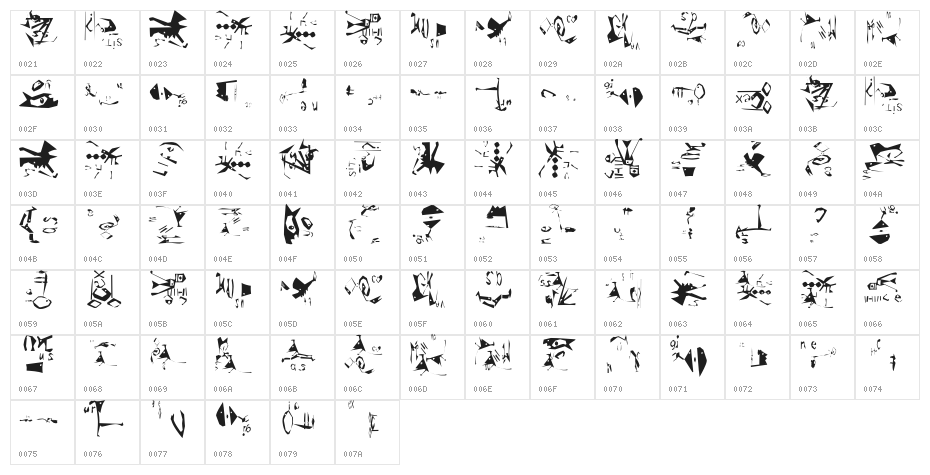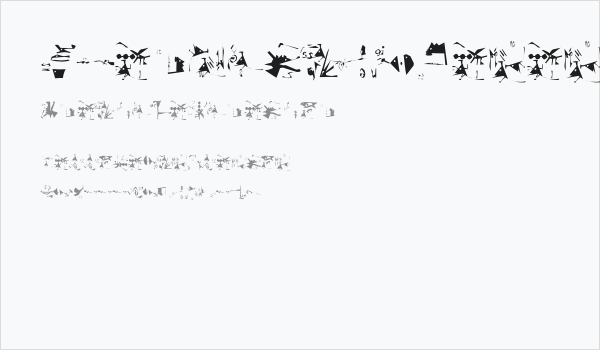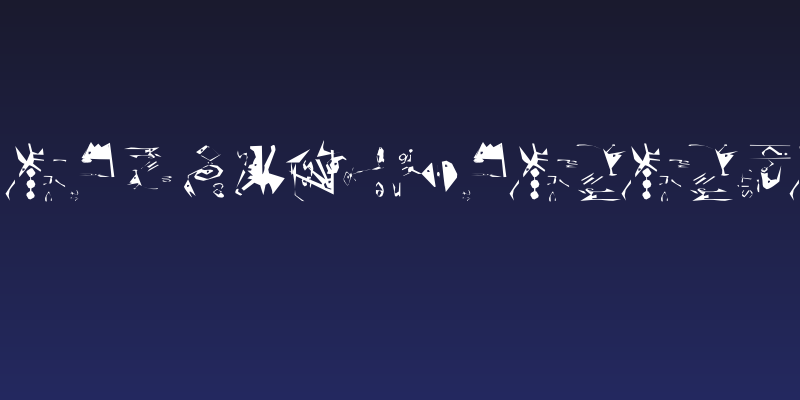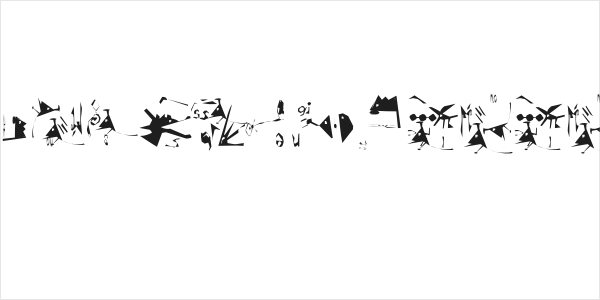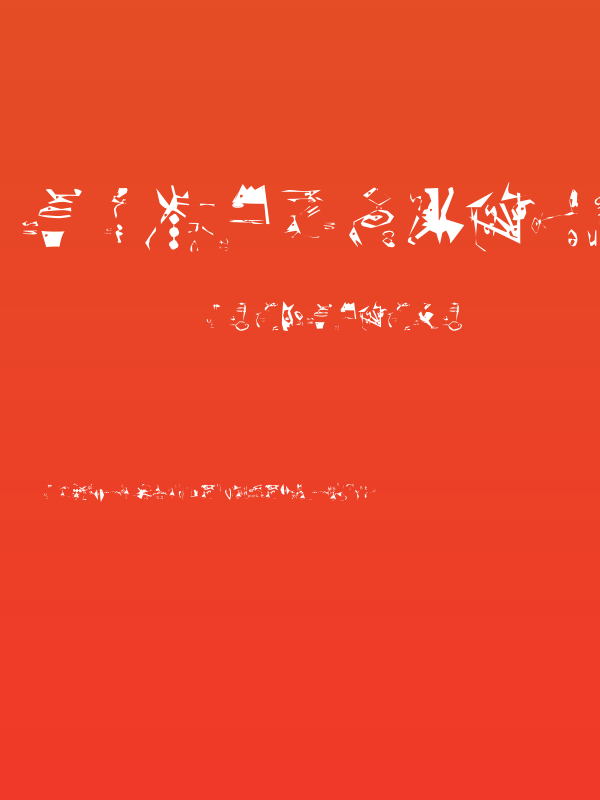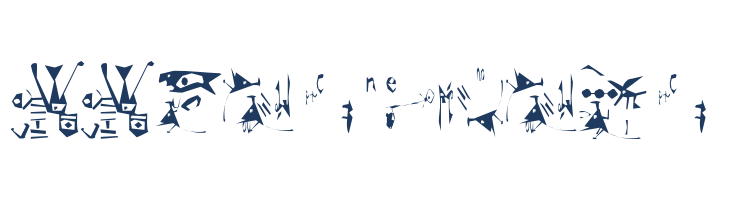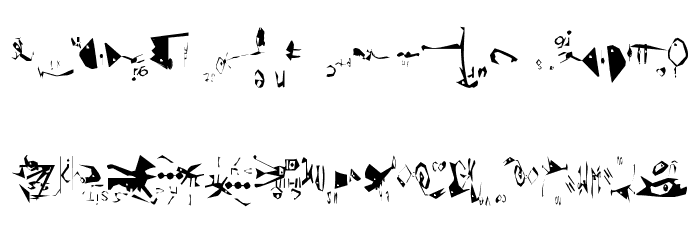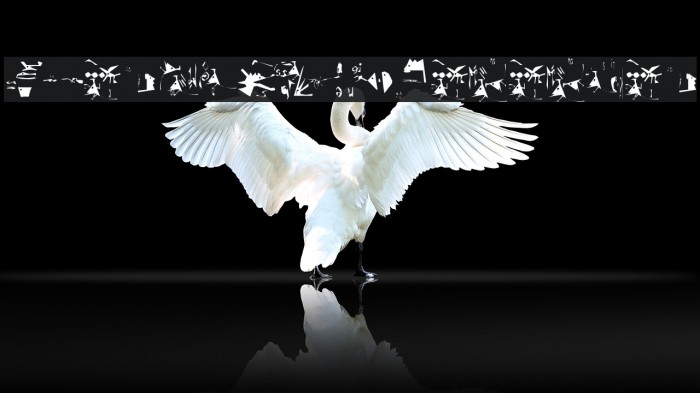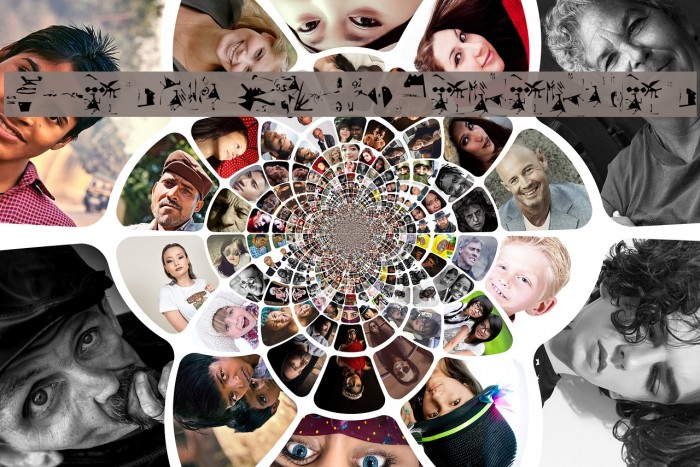
Guernica38Remember Font
Guernica38Remember Description
Highly abstract, fragmented, and chaotic letterforms with sharp angles and irregular shapes, evoking a sense of disarray and artistic expression. The glyphs are complex, with many strokes and unconventional forms, making legibility secondary to visual impact.
| Overall Style | Decorative, Abstract, Artistic |
| Use Case | Logos, Posters, Artistic titles |
| Proposed Projects | Album covers, avant-garde posters, experimental art projects, expressive branding, gallery invitations. |